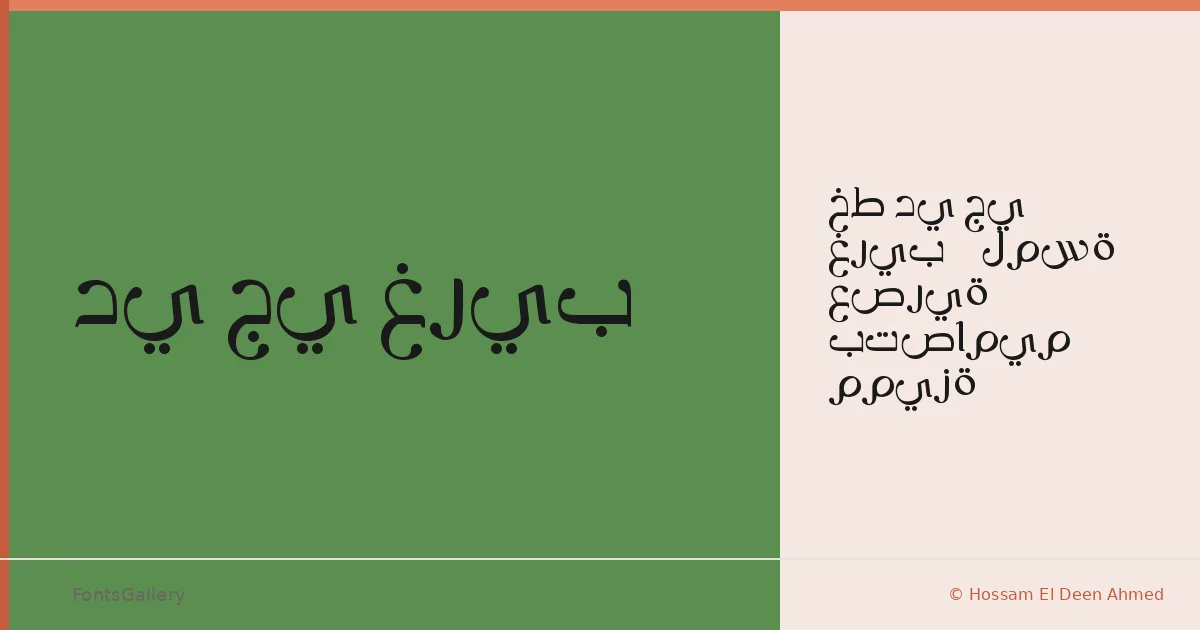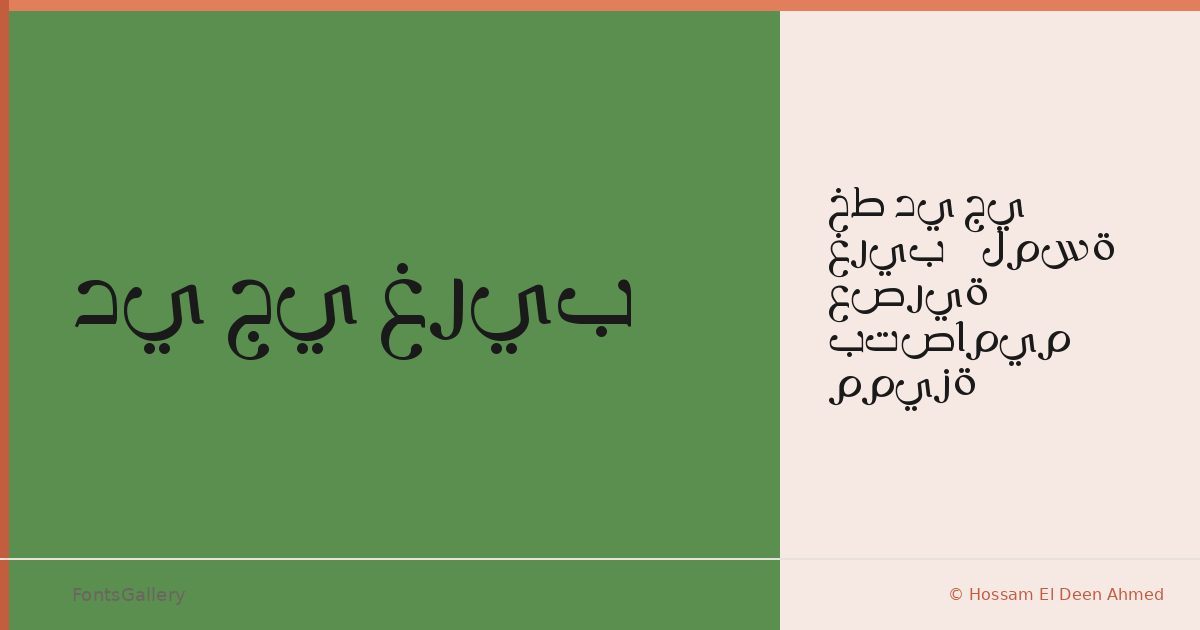
About DG Ghareeb Font
There is a deliberate heaviness to this Arabic display face — a confident stroke weight that commands attention without resorting to decoration. It is the work of designer Hossam El Deen Ahmed, and it arrives as a single cut: DG Ghareeb Bold. The letterforms carry a modern sensibility while staying grounded in the structure of Arabic script.
Sitting firmly in the display category, this is a bold, professional typeface built for Arabic-language settings where impact is the priority. The single Bold weight is delivered as a TTF file, lean and focused — there is no range of weights here, just one decisive statement of form. The mood is contemporary and commercial, the kind of Arabic type that holds its ground at large sizes without losing legibility.
It is most at home in headlines, posters, branding systems, logo lockups, and advertising where Arabic copy needs to assert itself. When building a bilingual layout, the listed pairing candidates — Helvetica, Canela, Abrade, Anglecia Pro, and Aileron — offer a range of Latin companions, from the clean neutrality of Helvetica to the editorial warmth of Canela, giving you room to match the register of the project.